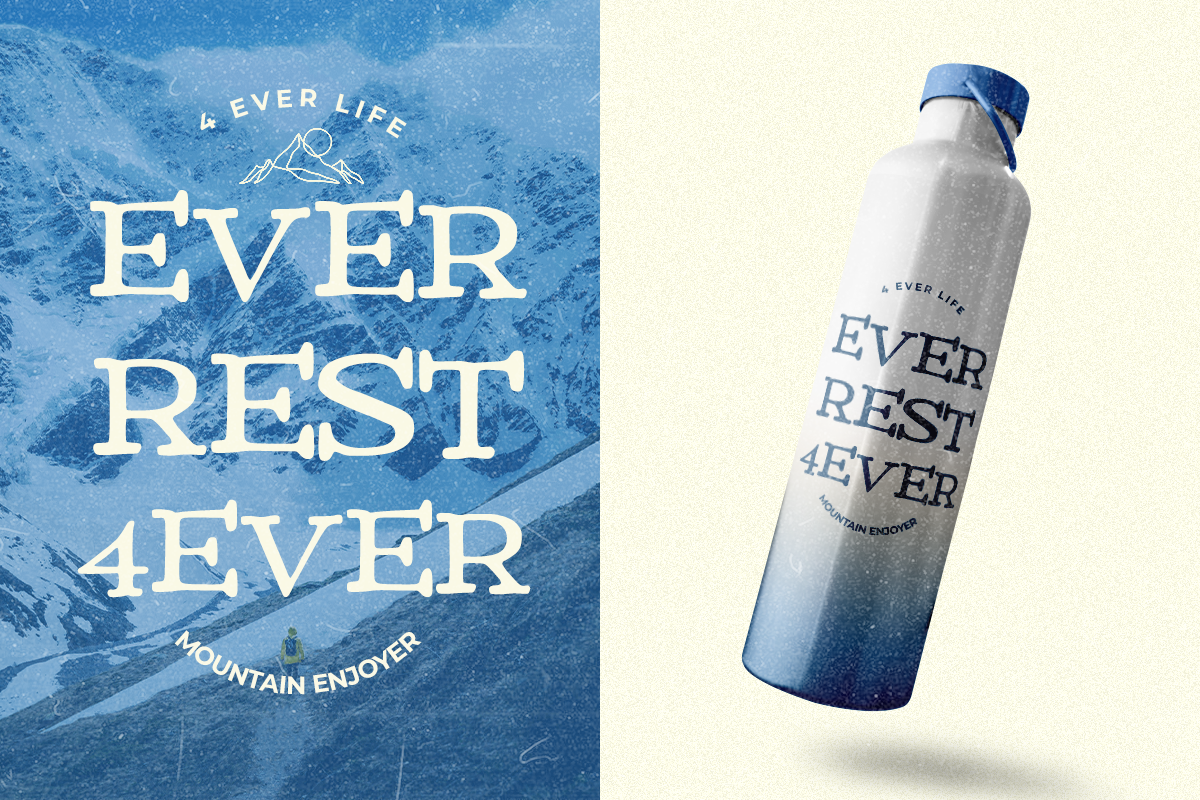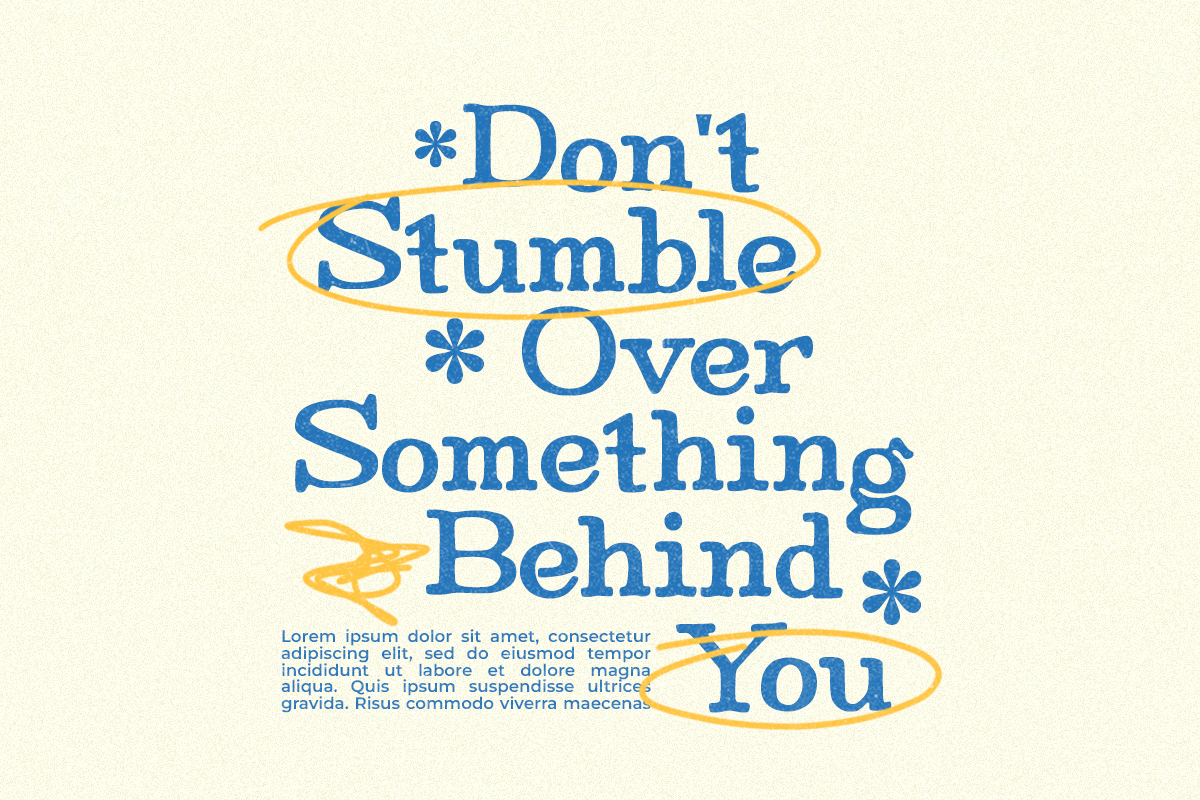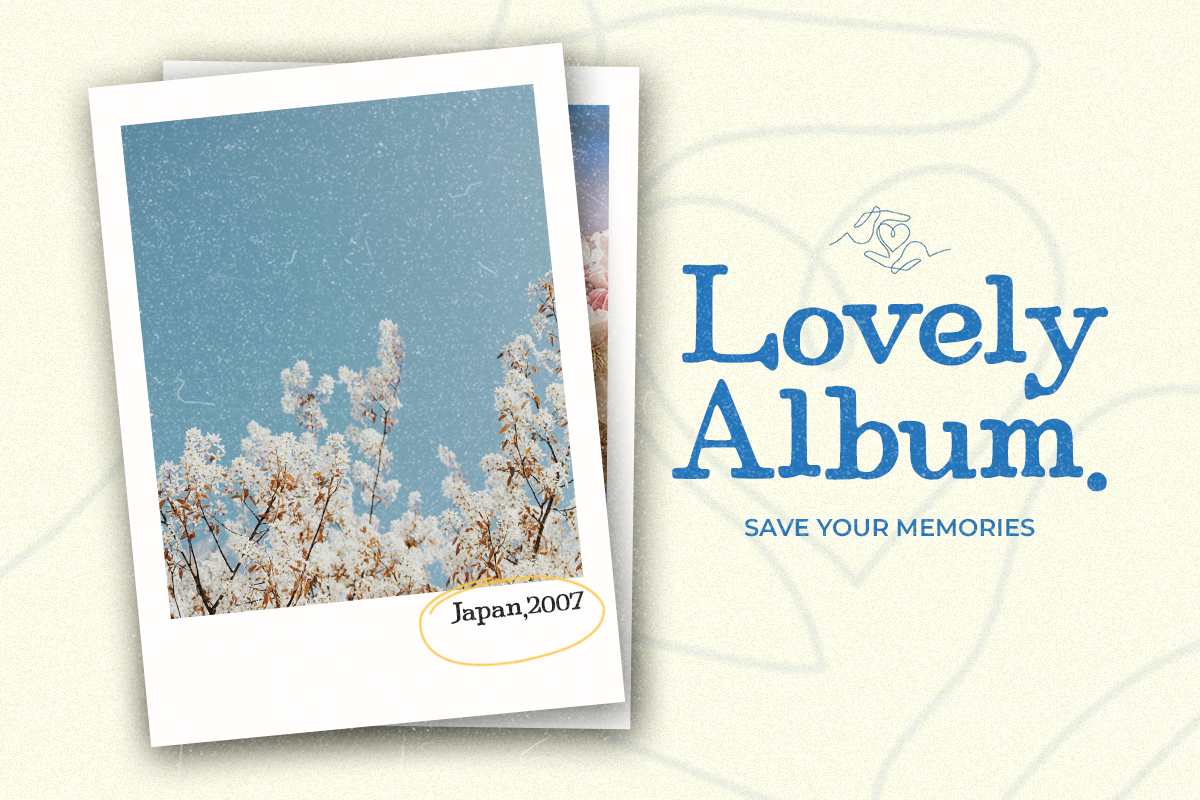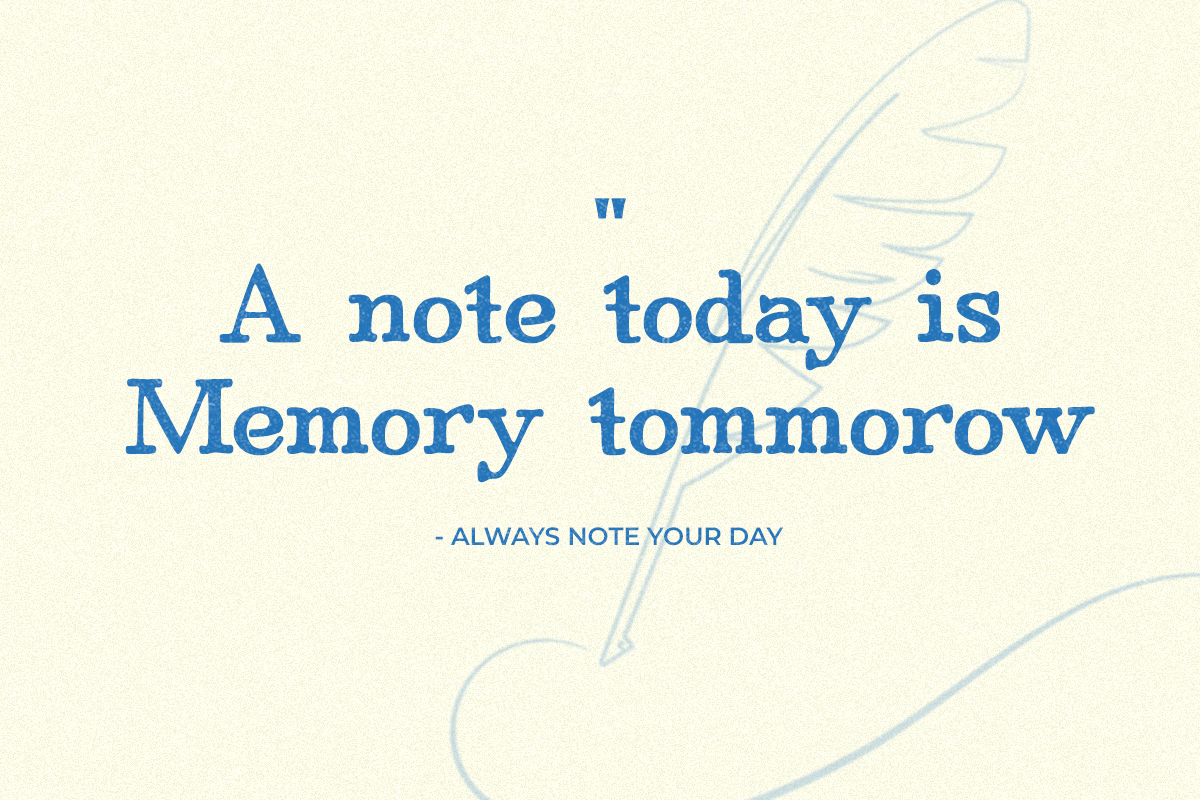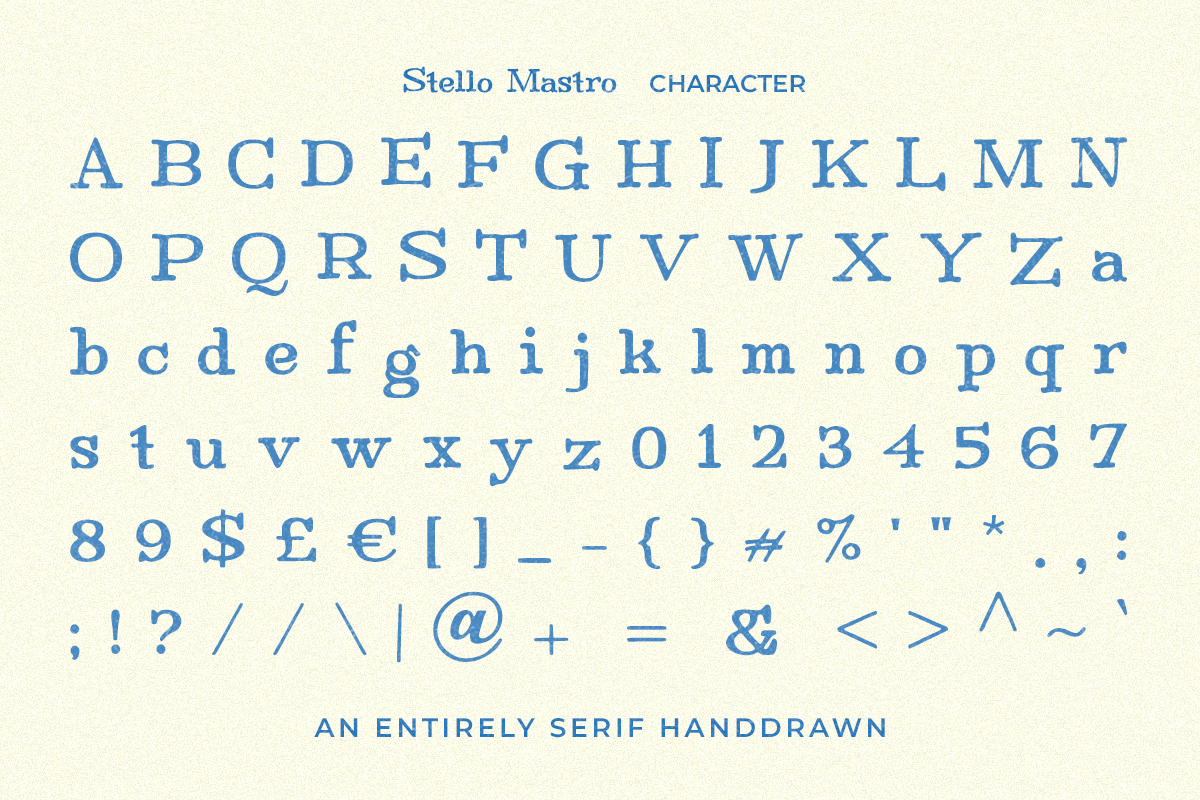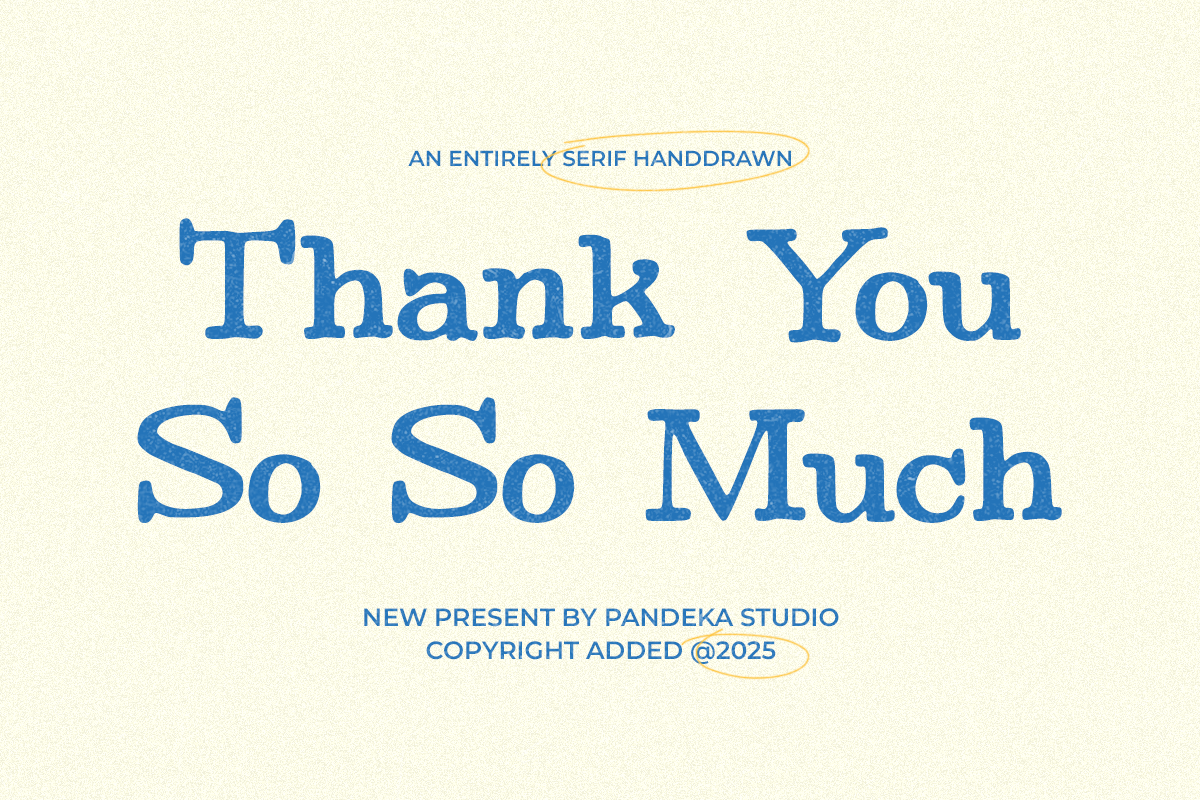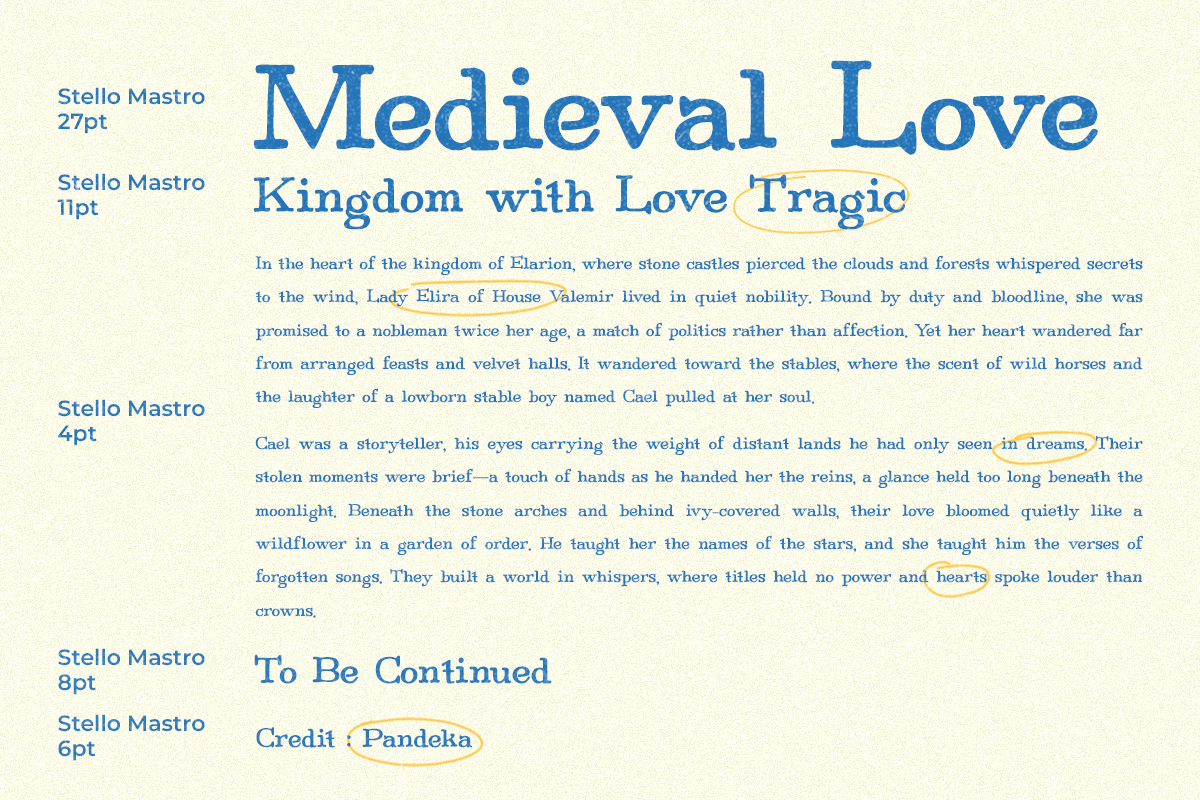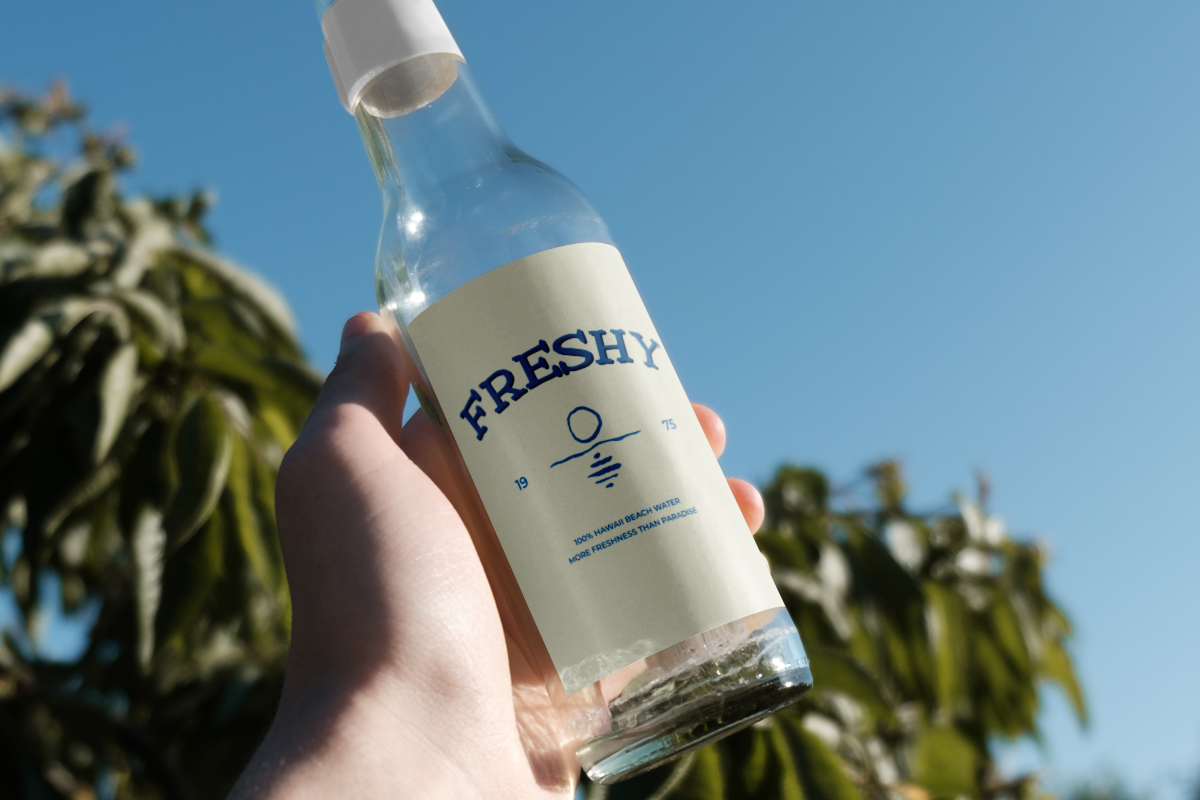
Stello Mastro - Handdrawn Serif
Stello Mastro – Handdrawn Serif Font
Stello Mastro is an italic serif with a hand-drawn touch, evoking rustic charm and vintage elegance. Perfect for artisan branding, café menus, product packaging, rustic logos, editorial titles, and handmade goods, this authentic typeface blends artistic lettering with classic design. A unique style for projects seeking a vintage aesthetic and timeless appeal.
- Full Character Set: Uppercase, lowercase, numbers, symbols, and punctuation